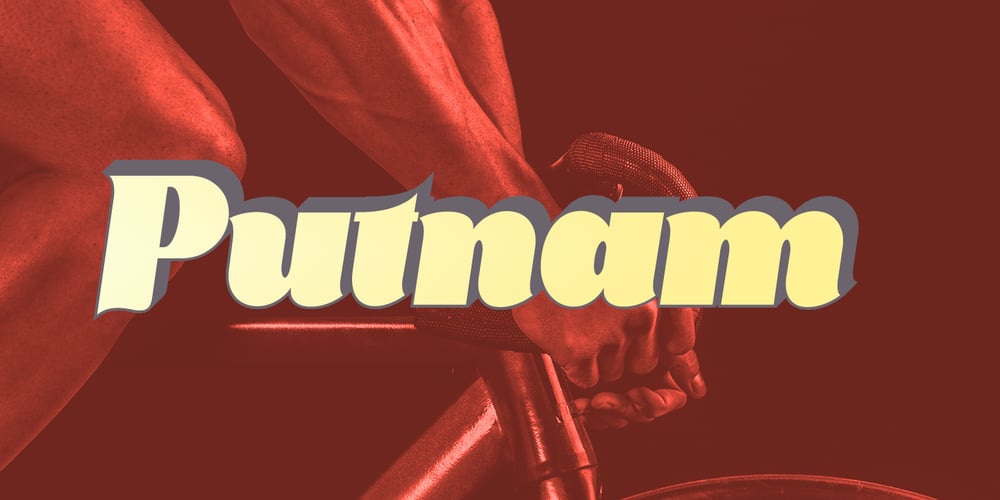
Putnam Font Family was designed by Roiyani Teungku and published by Artisan Studio. Putnam contains 2 styles and family package options. Putnam This is my font based on a handwriting project with a modern, modern-era serif style. fits perfectly with today’s retro typography design.Putnam also comes with an extra version of Extruded Font. as a function to create an extrusion effect for this font.Can be used for various purposes.such as headings, logos, wedding invitations, t-shirts, letterheads, labels, news, posters, badges etc. Multilingual support for various languages including: French, German, Spanish, Portuguese, Italian, Dutch, Finnish, Swedish, and more.Putnam works great in any branding, logos, magazines, films. The different weights give you a full range of whole hosts of applications, while the outlined fonts give a real modern feel to any project.OpenType features can be accessed by using OpenType smart programs such as Adobe Photo Shop, Adobe Illustrator, Adobe Indesign, Corel Draw and Microsoft Office.. can also be accessed through the character map.